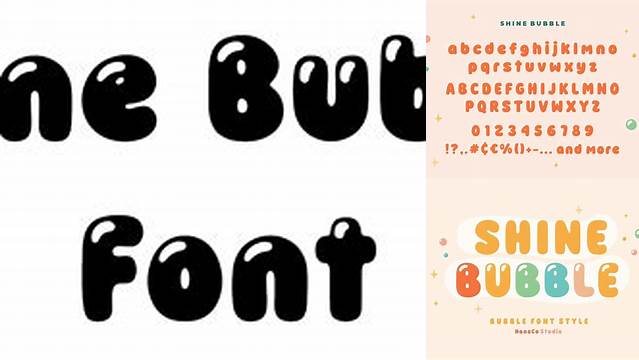
Hey guys! Ever found yourself scrolling endlessly, searching for that perfect font to give your project that extra oomph? Well, you're not alone. Choosing the right font can be a game-changer, whether you're designing a logo, crafting a presentation, or even just jazzing up your social media posts. Today, we're diving deep into the world of the Shine Bubble Regular font, a super versatile and fun typeface that you can download for free in TTF format. We'll cover everything from its best uses to where you can snag it, and even some tips on how to make the most of it. So, buckle up and let's get started!
1. What is Shine Bubble Regular Font?
The Shine Bubble Regular font is a typeface known for its playful and friendly aesthetic. It's characterized by its rounded edges, bubbly shapes, and overall approachable feel. Think of it as the font equivalent of a warm hug! This font family is perfect for projects that need a touch of whimsy and a dash of fun. Whether you're working on a children's book, a party invitation, or a website for a creative business, Shine Bubble Regular can add that special something. Its clean lines and legible design make it a great choice for both headlines and body text, offering versatility that many other display fonts lack. The regular weight ensures readability while maintaining its distinctive character, making it a go-to option for designers seeking a balance between personality and functionality.
Understanding the Design Elements of Shine Bubble Regular
To truly appreciate the Shine Bubble Regular font, let's break down its design elements. The rounded terminals and soft curves give it a friendly and approachable vibe, making it less formal than traditional fonts. This is crucial for projects aiming for a relaxed and inviting feel. The consistent stroke width ensures readability across different sizes, which means it works well in both large headlines and smaller body text. Additionally, the spacing between letters (kerning) is thoughtfully designed to create a balanced and harmonious look, preventing the letters from feeling cramped or too far apart. The font's bubbly shapes aren't just for show; they add a playful touch that can breathe life into any design. Understanding these elements will help you leverage the font's strengths effectively in your projects. For example, if you're designing a website for a daycare, the friendly and approachable nature of Shine Bubble Regular can instantly connect with parents. Alternatively, if you're creating a fun poster for a community event, its playful shapes can capture attention and create a sense of excitement.
Why Choose Shine Bubble Regular Over Other Fonts?
So, why pick Shine Bubble Regular from the font buffet? Well, for starters, its unique personality sets it apart. While there are tons of fonts out there, few manage to strike the balance between fun and readability as well as Shine Bubble Regular. Itβs not overly quirky or difficult to read, making it versatile for various projects. Compared to more formal fonts like Times New Roman or Arial, Shine Bubble Regular injects a dose of creativity and playfulness. On the other hand, itβs more polished and professional than handwriting-style fonts, which can sometimes appear messy or inconsistent. The key is finding the right context. Shine Bubble Regular shines (pun intended!) in projects where you want to convey a sense of warmth, fun, and approachability. Think of children's books, party invitations, creative business websites, and social media graphics. Itβs also a fantastic choice for logos and branding materials for companies that want to project a friendly image. In essence, if you're looking for a font that's both eye-catching and easy to read, Shine Bubble Regular is a solid contender.
2. Best Uses for Shine Bubble Regular Font
The beauty of the Shine Bubble Regular font lies in its versatility. It's not just a one-trick pony; this font can shine in a variety of projects. Let's explore some of the best ways to put Shine Bubble Regular to work for you.
Designing for Children's Books and Educational Materials
When it comes to designing for kids, you need a font that's both engaging and easy to read. Shine Bubble Regular fits the bill perfectly. Its rounded shapes and friendly demeanor make it inviting for young readers, while its clear letterforms ensure readability. Imagine a children's book with the title and chapter headings set in Shine Bubble Regular β it instantly creates a sense of fun and adventure. For educational materials like worksheets and flashcards, this font can make learning feel less like a chore and more like a game. The key is to use it thoughtfully, balancing it with appropriate imagery and spacing. Too much visual clutter can overwhelm young readers, so keep the design clean and simple. Consider using Shine Bubble Regular for headings and subheadings, and pair it with a more straightforward font for body text to ensure clarity. This way, you capture the playful essence of the font without sacrificing readability.
Creating Eye-Catching Invitations and Event Posters
Planning a party or event? Shine Bubble Regular font can help you create invitations and posters that truly stand out. Its bubbly personality makes it ideal for conveying a sense of fun and excitement. Whether you're throwing a birthday bash, a baby shower, or a community fair, this font can set the tone perfectly. Imagine a vibrant party invitation with the details splashed across in Shine Bubble Regular β it's sure to grab attention and get people excited to RSVP. For event posters, this font can be used to highlight key information like the date, time, and location. Pair it with colorful graphics and engaging imagery to create a design that pops. Just remember to maintain a balance between visual appeal and readability. Use the font strategically to draw the eye to the most important details, and ensure that the overall design is easy to understand at a glance. This way, your invitations and posters will not only look great but also effectively communicate the message.
Branding for Creative Businesses and Startups
In the world of branding, first impressions are everything. If you're a creative business or startup looking to project a friendly and approachable image, Shine Bubble Regular can be a fantastic choice. This font's playful aesthetic can help you stand out from the crowd and connect with your target audience. Imagine a logo designed with Shine Bubble Regular β it instantly conveys a sense of creativity and warmth. This font can also be used in your website design, marketing materials, and social media graphics to create a consistent brand identity. The key is to use it strategically. Consider your brand's personality and values, and ensure that Shine Bubble Regular aligns with your overall message. For example, if you're a children's boutique or a bakery, this font can be a perfect fit. However, if you're a law firm or a financial institution, a more formal font might be more appropriate. When used effectively, Shine Bubble Regular can help you build a brand that's both memorable and approachable.
Enhancing Social Media Graphics and Online Content
In today's digital age, social media is king. If you want your posts and graphics to stand out in the endless scroll, Shine Bubble Regular can be a valuable tool. This font's playful and eye-catching design can help you grab attention and convey your message effectively. Imagine a social media graphic with a catchy headline in Shine Bubble Regular β it's sure to make people stop and take notice. This font is also great for creating visually appealing quotes, announcements, and promotional materials. The key is to use it strategically to complement your overall content. Pair it with engaging images and videos to create a cohesive and visually appealing feed. Remember to consider your target audience and the platform you're using. Shine Bubble Regular might be perfect for Instagram and Facebook, but it might not be the best choice for LinkedIn, where a more professional tone is often preferred. When used thoughtfully, Shine Bubble Regular can help you create social media content that's both engaging and effective.
Making Presentations More Engaging and Fun
Let's face it, presentations can sometimes be a bit of a snooze-fest. But with the right font, you can make your slides more engaging and fun. Shine Bubble Regular can inject a dose of personality into your presentations, helping you connect with your audience on a more personal level. Imagine a presentation with headings and subheadings set in Shine Bubble Regular β it instantly creates a more relaxed and approachable atmosphere. This font is especially effective for presentations that are aimed at a younger audience or those that cover creative topics. The key is to use it strategically to highlight key information and maintain a consistent visual style. Pair it with clean layouts, engaging visuals, and concise content to create a presentation that's both informative and entertaining. Remember, the goal is to keep your audience engaged and interested, and Shine Bubble Regular can be a valuable tool in achieving that.
Encouraging Readers to Share Their Experiences and Creations
Finally, I want to encourage you to share your experiences and creations with the Shine Bubble Regular font. Have you used it in a project? Did it help you achieve your design goals? What challenges did you encounter, and how did you overcome them? Sharing your experiences can help other designers learn and grow, and it can also inspire new ideas and approaches. If you've created something awesome with Shine Bubble Regular, we'd love to see it! Share your designs on social media and tag us so we can check them out. You can also leave a comment below and tell us about your experiences with the font. Let's build a community of designers who are passionate about typography and creating beautiful things. Your feedback and contributions are valuable, and we appreciate you being a part of this journey. So, don't be shy β share your thoughts, your creations, and your passion for design! Thanks for reading, and happy creating!